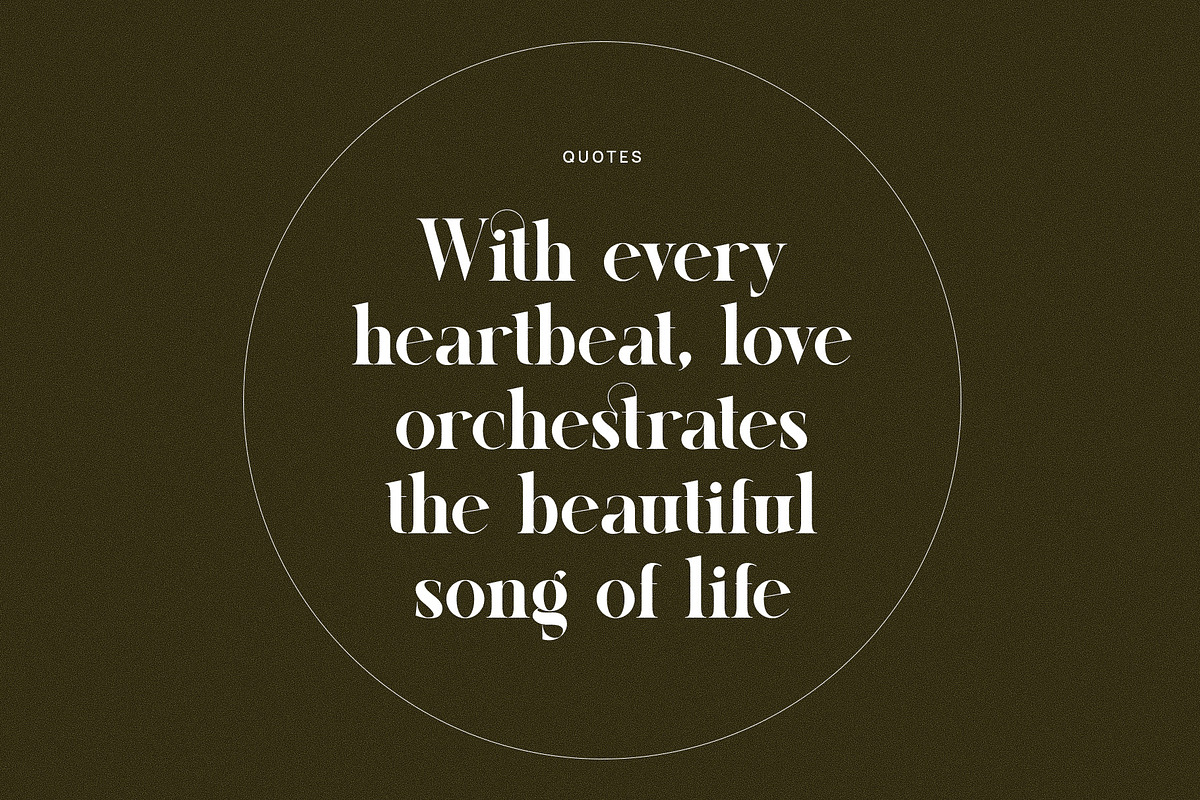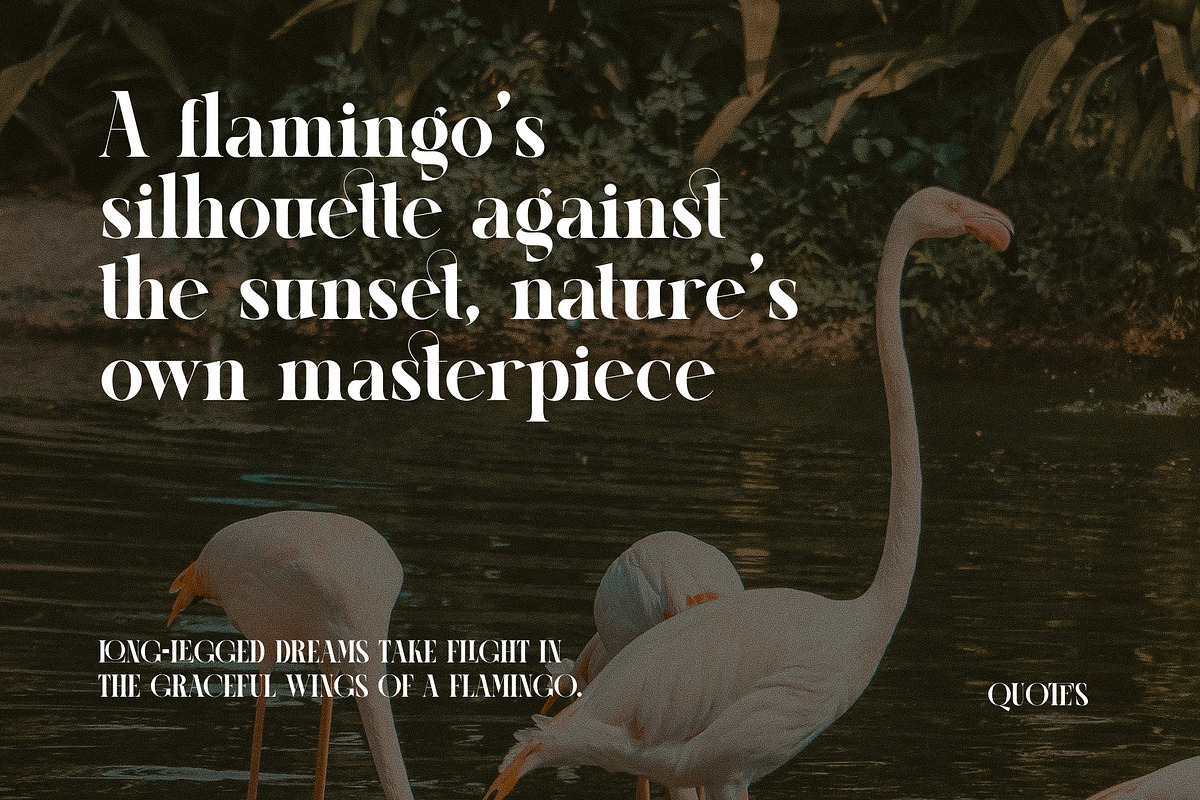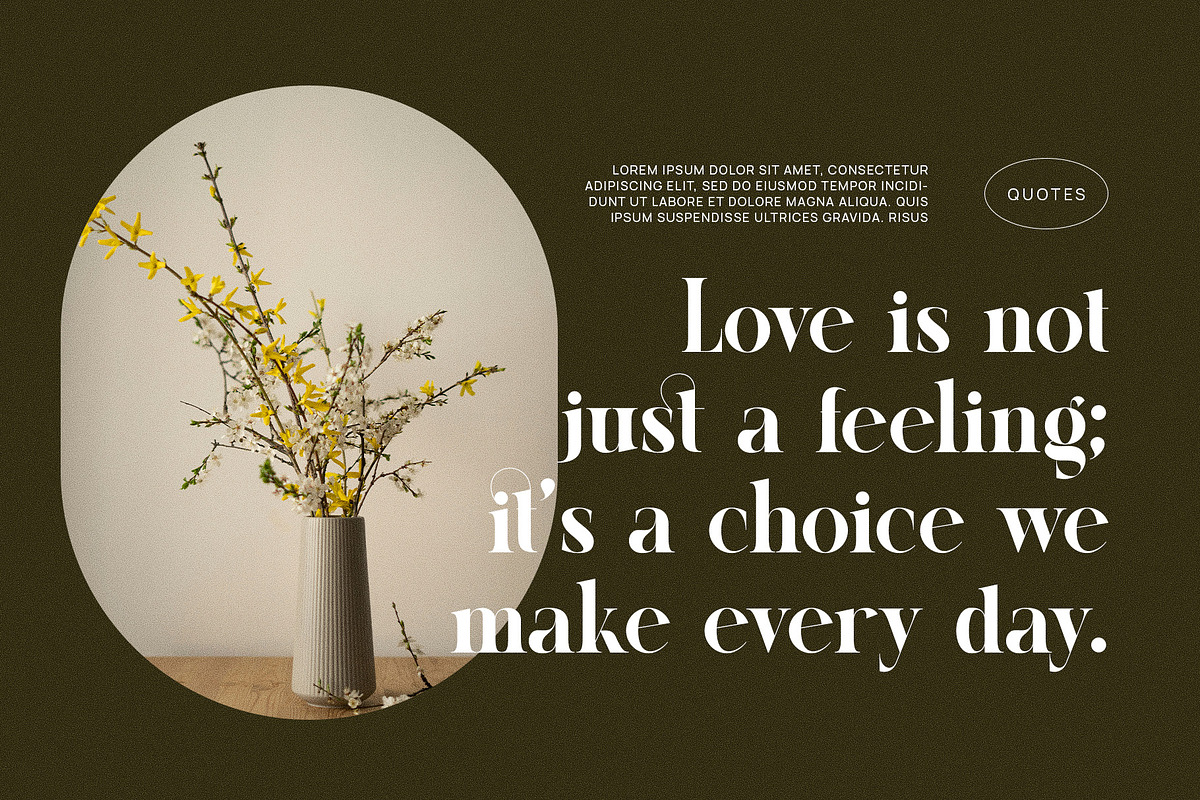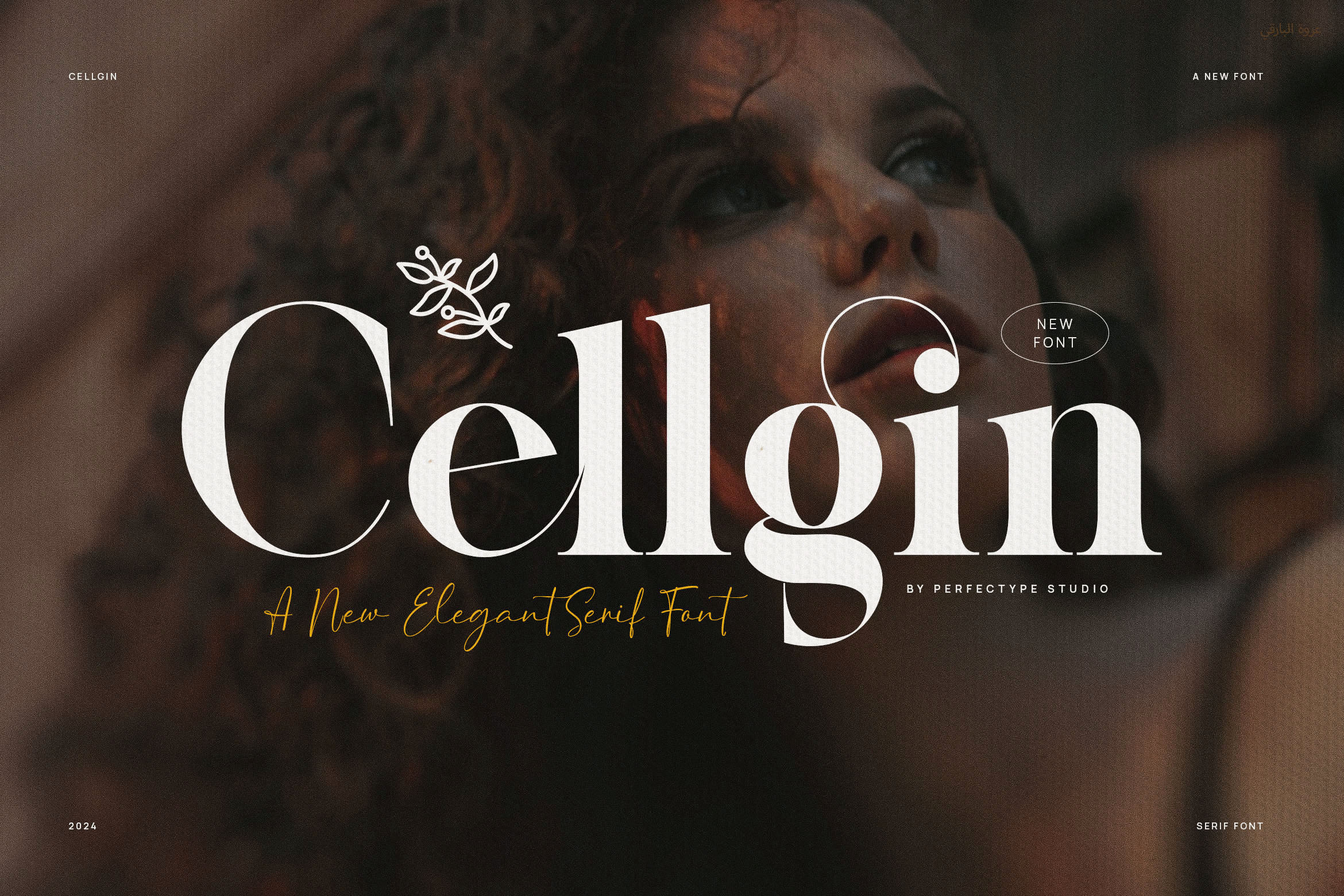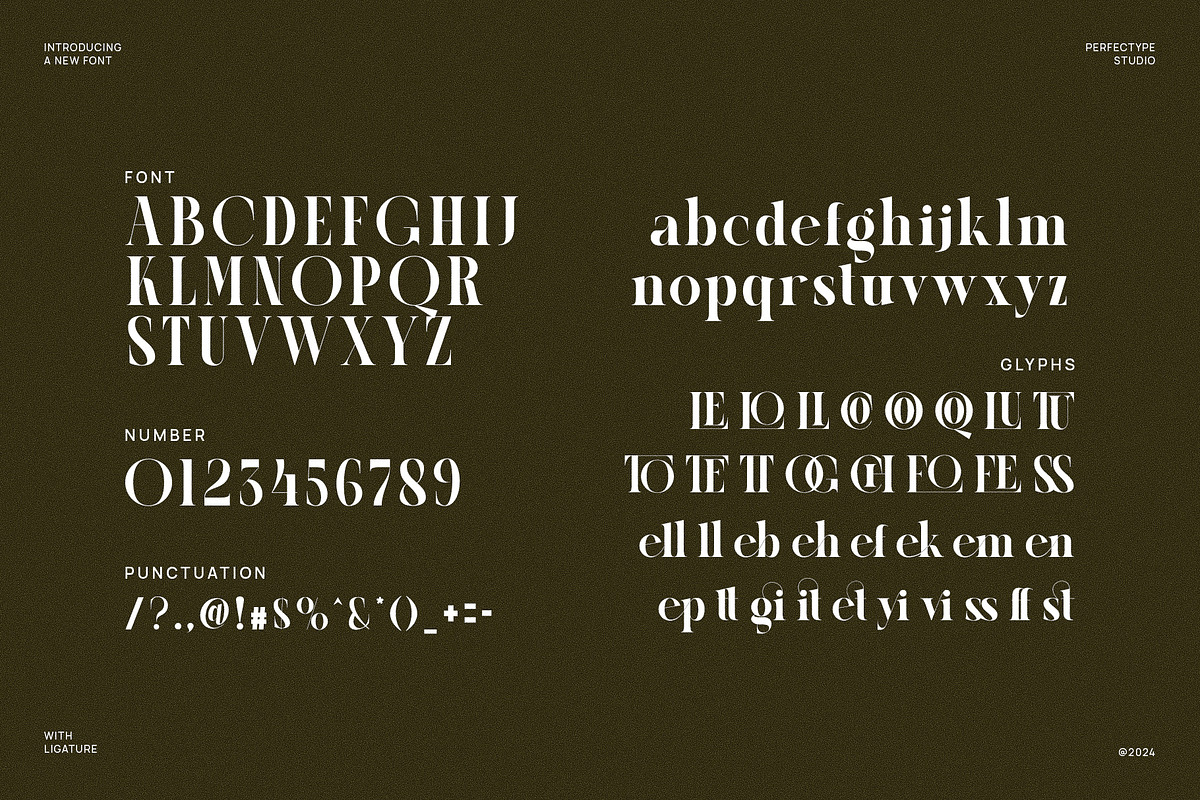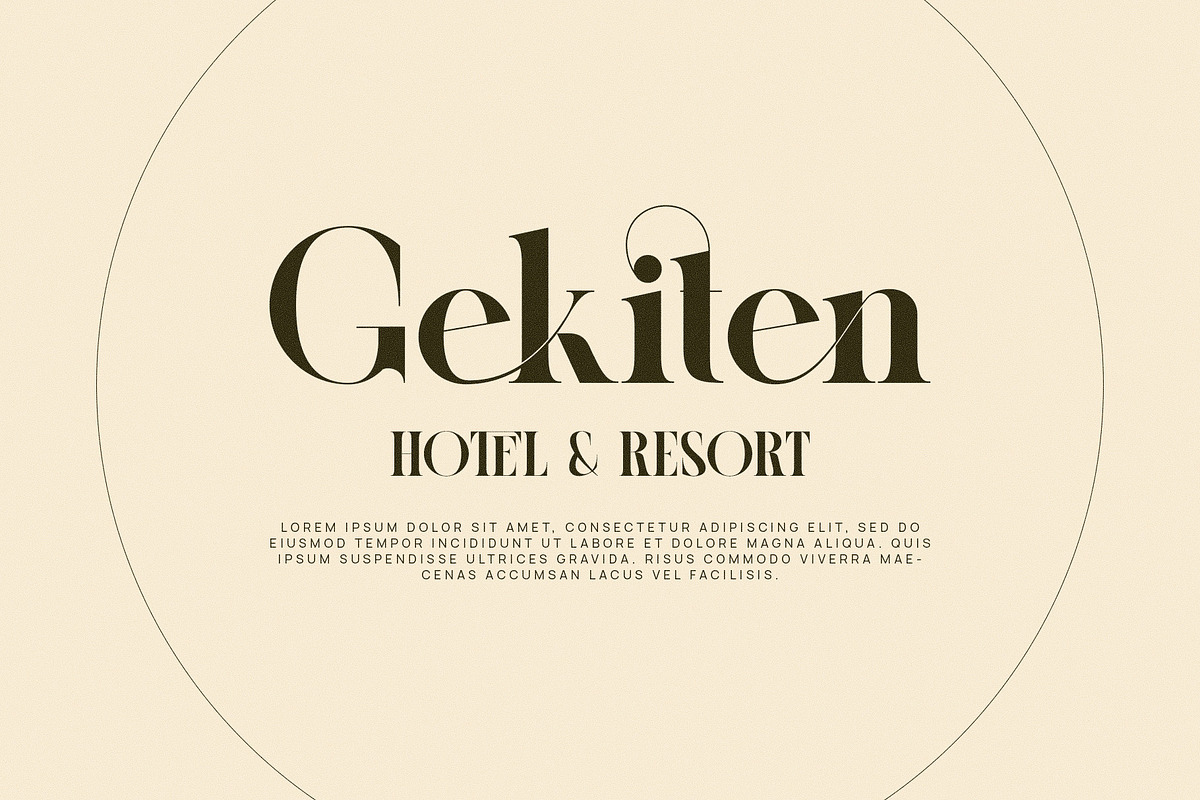
Cellgin Elegant Ligature Serif Font
This is a very elegant and classy font for all branding and logo designs This type of serif font is made with elegance and luxury so it is very suitable for all your design uses. This type of font is very suitable for your various needs such as branding projects, logos, social media posts, advertisements, labels, product packaging, photography, wedding designs, watermarks, invitation product designs, stationery, and any project, created at a high level legibility.